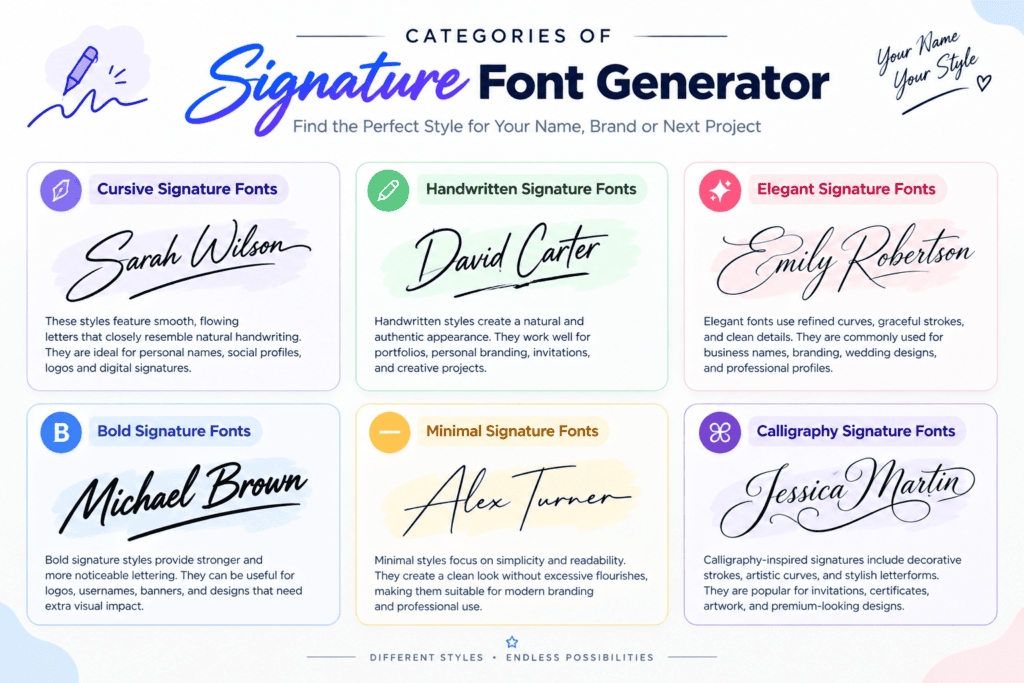
Creating personal branding through a handwritten mark is less about imitation and more about recognizable identity. A signature font generator converts a name into flowing styles, giving social profiles, emails, and bios a personal finish.
From my practical testing, copy-paste Unicode is useful for quick identity experiments, while a downloaded font file suits controlled layouts. Choosing cursive, italic, or bold styling depends on legibility, platform, and the intended professional context.
What Is A Signature Font Generator
A signature font generator can transform a type name into script text, then let you compare 74 styles, curves, and serif details without manual design work, creating a distinct handwritten impression for modern branding today.
In practice, I find the useful test is not realism alone; it is whether the generated lettering remains readable across device, email closing, profile, and transparent PNG workflows without losing its intended character in use.
How To Use It
After entering your typed name, inspect the signature font generator preview and available pick font options. From experience, testing several styles first reveals differences in readability, spacing, and character balance before settling on a design.
Next, test the chosen cleaner style in an email signature, social media bio, and digital document. If rendering changes, try a simpler script, compare device support, then keep a matching style for consistent professional use.
Why Use This Generator
Use this generator when ordinary lettering feels too generic. I often see creators need custom lettering, a stronger personal touch, and practical creative branding for profiles, invitations, portfolios, and email identities without installing specialized software.
From my experience, the biggest benefit is controlled presentation: choose a script signature, test Unicode rendering, compare professional styles, then copy-paste text into your professional email signature or profile text across platforms while keeping readability.
Where To Use
Signature fonts fit naturally into email sign-off areas, social bio profiles, profile heading sections, website headers, and signature font for logo projects, especially when a casual signature or professional use needs a polished visual identity.
I also use them for wedding invitation drafts, personal letter layouts, sales letter designs, e-book covers, digital signature graphics, and commercial use branding, while keeping elegant script readable across each destination without sacrificing character consistency.
Categories
Signature font categories become clearer when you examine where style fits: professionalism, portfolio, resume, event invitation, watermark concept, or gamer tag. I usually group choices by purpose before judging appearance, readability, and personality first, carefully.
For work, HTML signature, logo concept, wordmark, maker mark, photography watermark, and creator handle need treatments. For personal projects, wedding invitation, dedication line, custom gift, and tattoo reference can favor decorative character and expressive strokes.
Tips For Better
Better signature text starts with restraint: choose a graceful cursive signature font, then test spacing, readable text, and overall presence before exporting. I usually compare styles at normal viewing size to avoid visual clutter online.
For names with letters, a longer name often needs a refined italic signature text rather than heavy decoration. Use one supporting text element at most, keep symbols restrained, and check device rendering through mobile browser.
Signature Fonts Vs. Real/Legal Signatures
A signature font can create a polished visual identity, but it is not automatically a legal signing tool. I routinely recommend treating generated text as presentation material, especially beside an official document or financial document.
For real transactions, the signer usually follows the required signature method, identity checks, and organization requirement. A visual generator produces appearance only; its output may be not legally binding, even when it closely resembles handwriting.
Conclusion
A practical signature font workflow balances personalization, modern style, and professional text signature quality, keeping each handwritten name style usable across digital documents, profiles, correspondence, and copy and paste, and still preserving a polished presentation.
From my experience, results come when users treat Unicode text as a design choice, test device rendering, and keep legal boundaries visible; polished output should support brand alignment while staying practical for real-world use consistently.
What’s The Difference Between A Signature Font And A Regular Font?
Signature fonts imitate handwriting, combining a handwritten signature appearance with expressive details, while regular fonts emphasize consistency and readability. In practice, a professional signature font adds personality; a standard typeface supports clearer, predictable communication today.